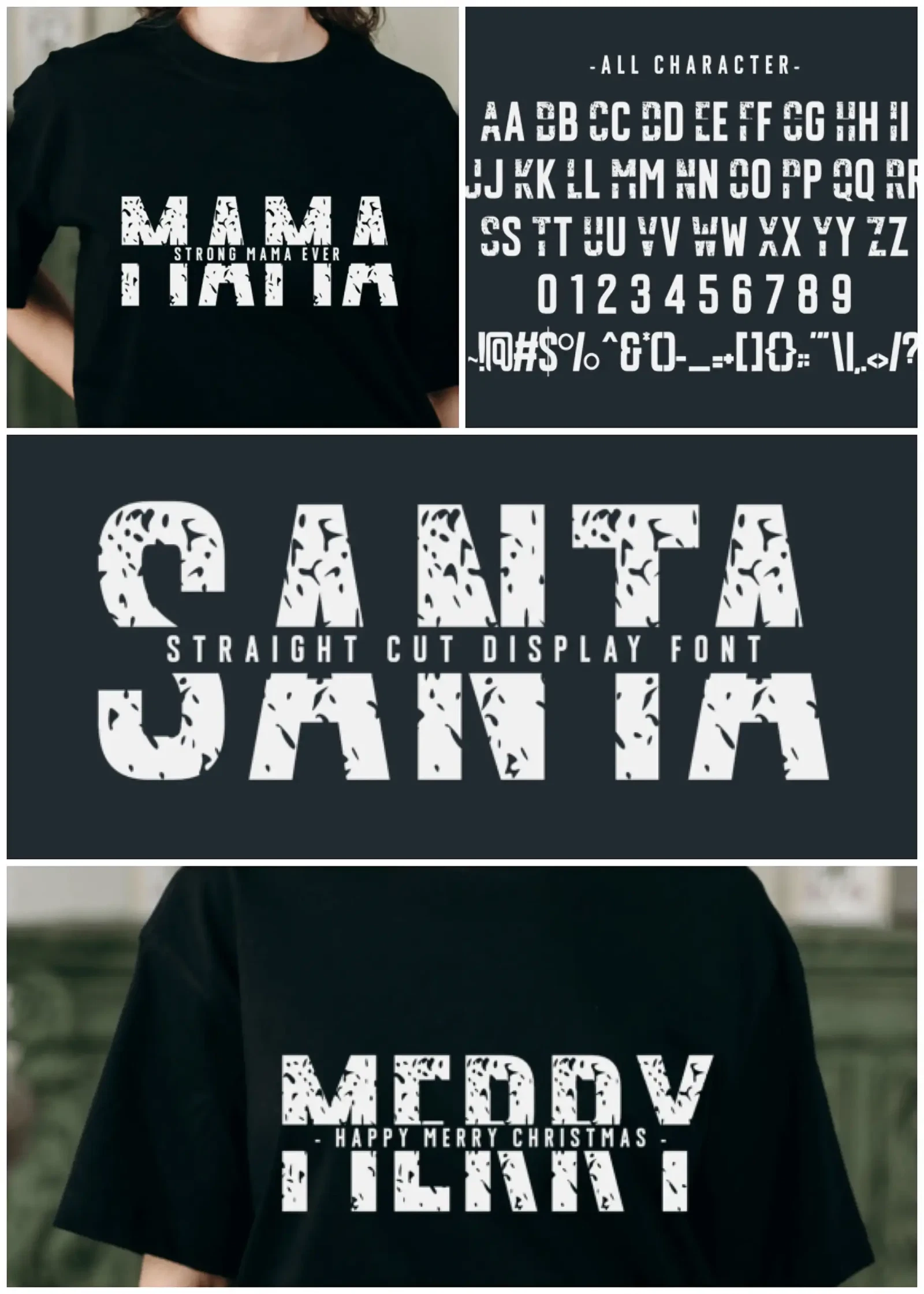
The Santa Straight Cut Display Font is a strong Christmas typeface with a textured style. It works well for holiday projects that need to grab attention. It has sharp letters with a somewhat rough texture, mixing a winter feel with up-to-date seasonal energy. It suits designers making Cricut Christmas crafts, shirt designs, holiday SVG sets, and farmhouse-style Christmas decorations.
This font is great for Santa sack designs, porch signs, old-style holiday prints, or winter quotes, adding character and visual interest. Its textured look is good for print-on-demand items like mugs, ornaments, tumblers, pillows, blankets, and custom gifts. The strong shape helps it to be read easily in both online and print forms.
The Santa font, is a good choice for those who enjoy rustic Christmas fonts, rough-style holiday lettering, and strong festive fonts. It fits well into SVG projects, Cricut files, and seasonal sign-making.
This can be used to make Christmas shirt designs, holiday porch signs, winter quotes, Santa Claus pictures, and Christmas sets for Etsy. If a strong lettering style is desired, Santa adds a festive look to creative resources.